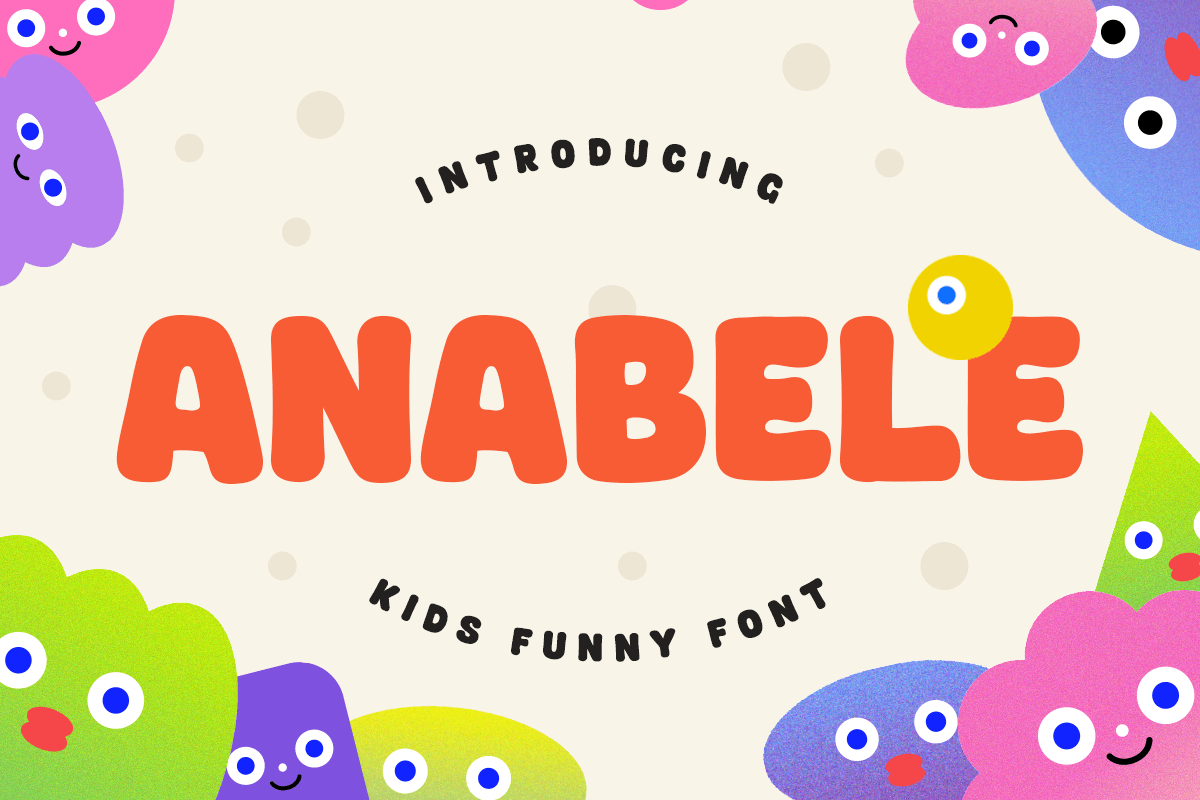
Anabele
-Kids Funny FontAnabele - Kids Funny Font
Anabele is a fun and quirky kids' font designed to bring joy, laughter, and creativity to your projects! With its bubbly shapes, playful curves, and friendly letterforms, this font is perfect for children’s books, school projects, toy packaging, birthday invitations, cartoons, and fun branding.
Designed to spark imagination, Anabele is full of energy and happiness, making it ideal for any project that needs a lighthearted and joyful touch. Whether you're working on educational materials, posters, or game titles, this font will add a sense of fun and excitement to your designs.
Let your creativity run wild with Anabele, a typeface that inspires smiles and playful moments!
Anabele - Kids Funny Font Features:
Playful, bouncy, and child-friendly letterforms
Perfect for kids' designs, cartoons, and fun branding
Add fun, laughter, and playfulness to your designs with Anabele – the perfect kids' font for joyful creations!